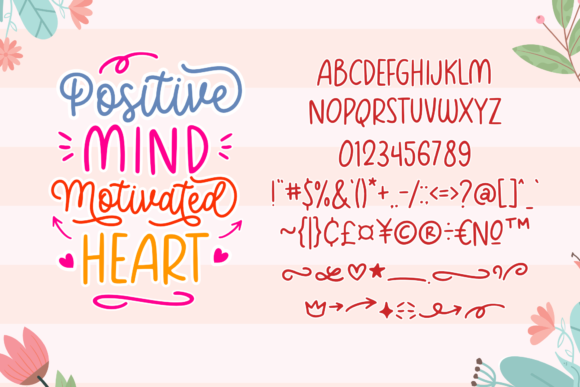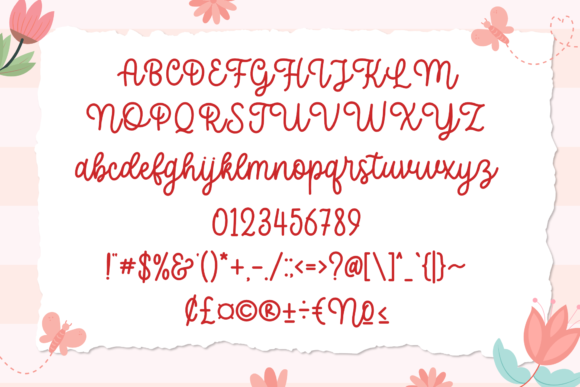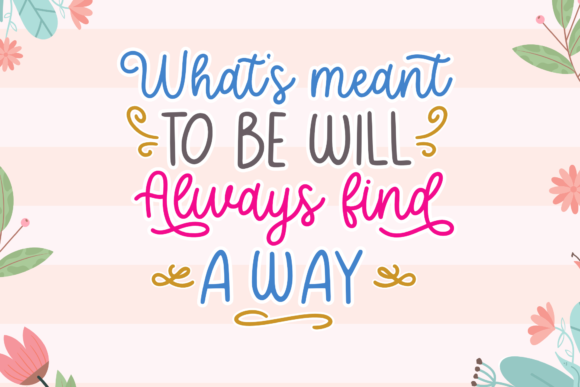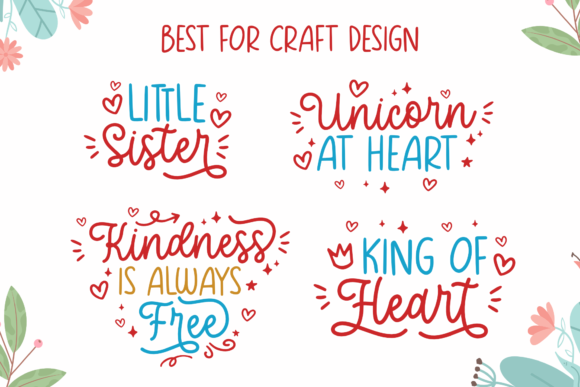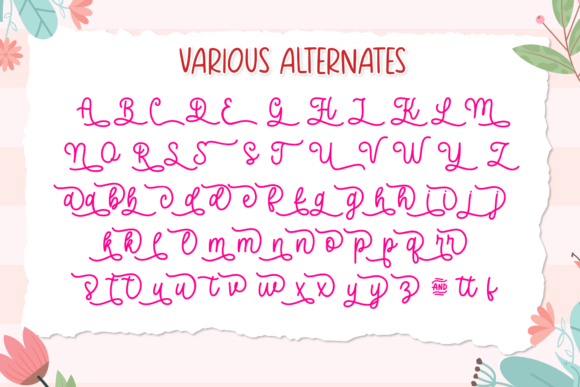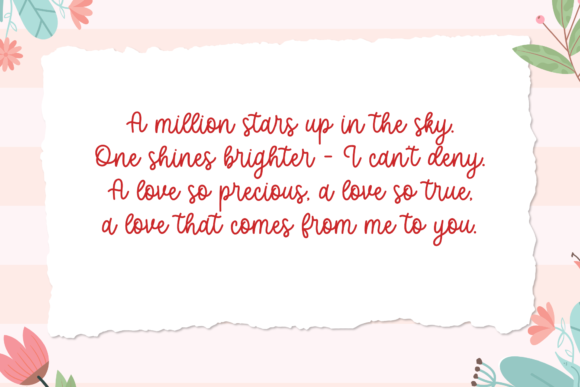
Happiness is Homemade Font: The Perfect Addition to Your Design Toolbox
Are you a designer or crafter looking for a unique and charming font to elevate your projects? Look no further than the Happiness is Homemade Font! This delightful duo font combines a sans serif and handwritten style, creating a warm and friendly aesthetic that’s sure to capture the hearts of your audience.
What Makes Happiness is Homemade Font So Special?
The Happiness is Homemade Font is a one-of-a-kind typeface that boasts a range of features that make it perfect for a variety of design applications. Here are just a few reasons why you’ll fall in love with this font:
- PUA Encoding: The Happiness is Homemade Font is PUA (Private Use Area) encoded, which means that you can access all of the glyphs and swashes with ease. This makes it simple to create beautiful, unique designs that showcase your creativity.
- Dainty Style: The font’s dainty style is perfect for creating bright and cheerful designs that are sure to put a smile on your audience’s faces. Whether you’re working on a craft project, creating social media graphics, or designing marketing materials, this font is sure to add a touch of warmth and personality to your work.
- Duo Font: The Happiness is Homemade Font comes in two styles: sans serif and handwritten. This allows you to mix and match the fonts to create a unique look that’s all your own.
Uses for Happiness is Homemade Font
The Happiness is Homemade Font is versatile and can be used in a variety of design applications, including:
- Crafting: Whether you’re creating handmade cards, scrapbooking, or working on other craft projects, this font is perfect for adding a personal touch to your work.
- Social Media Graphics: Use the Happiness is Homemade Font to create eye-catching social media graphics that are sure to grab the attention of your followers.
- Marketing Materials: From brochures to flyers, this font is perfect for creating marketing materials that are both professional and visually appealing.
- Blogging: Add a touch of personality to your blog posts with the Happiness is Homemade Font. It’s perfect for creating headings, titles, and other design elements that will make your blog stand out.
Tips for Using Happiness is Homemade Font
Here are a few tips for getting the most out of the Happiness is Homemade Font:
- Experiment with Different Sizes: Don’t be afraid to experiment with different font sizes to create visual interest and hierarchy in your designs.
- Mix and Match: Try pairing the sans serif and handwritten fonts to create a unique look that’s all your own.
- Use Swashes and Glyphs: Take advantage of the font’s PUA encoding by using the swashes and glyphs to add a touch of elegance and sophistication to your designs.
The Happiness is Homemade Font is a charming and versatile typeface that’s perfect for designers and crafters looking to add a touch of warmth and personality to their projects. With its PUA encoding, dainty style, and duo font design, this font is sure to become a staple in your design toolbox. So why wait? Download the Happiness is Homemade Font today and start creating beautiful, unique designs that will capture the hearts of your audience!